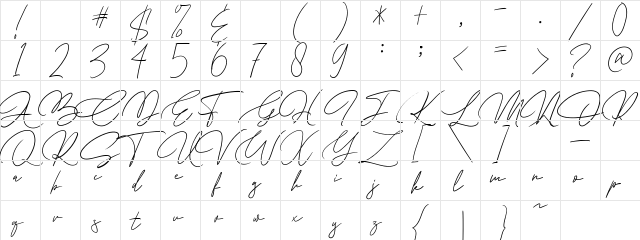
Andrea Bilarosa Regular
Design Context for Andrea Bilarosa Typeface
Andrea Bilarosa is a composed and adaptable typeface that performs quietly and consistently across a wide range of design contexts.